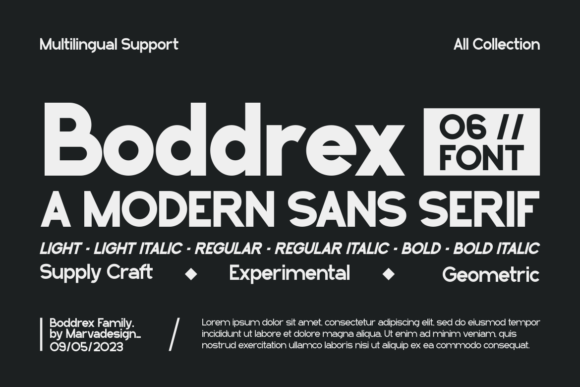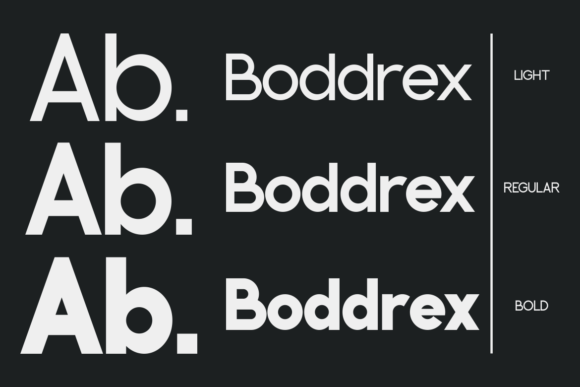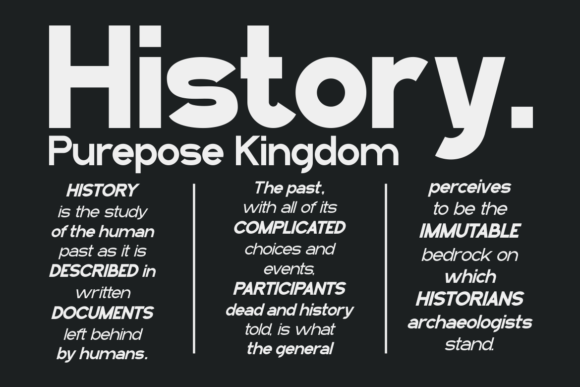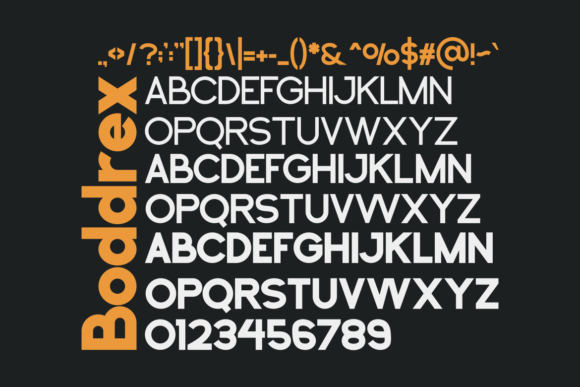
Boddrex Font: Modern Sans Serif for Branding & Logo Design
About the Boddrex Font
From logos to headlines, the Boddrex Font is the perfect choice for making a lasting impression. Boddrex is a sleek and modern sans-serif font, bringing a clean and contemporary vibe to your projects. With its straightforward design, Boddrex is perfect for creating a polished and professional look in various applications. Whether you’re working on a website, presentation, or any design project, this font’s modern simplicity adds a touch of sophistication. Upgrade your typographic style with Boddrex for a fresh and clean aesthetic that effortlessly fits into the modern design landscape.
Boddrex excels in headlines, logos, and short-form text such as signage or marketing materials. Its clean lines and modern feel make it ideal for brands projecting a sense of sophistication and technological advancement. Avoid using Boddrex for large blocks of body text; its minimalist nature can become monotonous in extended reading.
Its personality is best described as confident and modern, yet approachable. For a balanced pairing, consider using a warmer serif like Garamond for body copy to contrast its sleekness, or a playful script font like Pacifico for secondary text elements to add a touch of personality without overwhelming Boddrex’s clean aesthetic.
A geometric sans-serif like Futura could also work well as a complementary font, offering a similar level of modernity but with a slightly different weight and feel. Conversely, for a more minimalist approach, pairing Boddrex with a very thin, neutral sans-serif like Lato can create a visually impactful yet refined presentation.
Boddrex Font Usage Examples
Boddrex Font Example